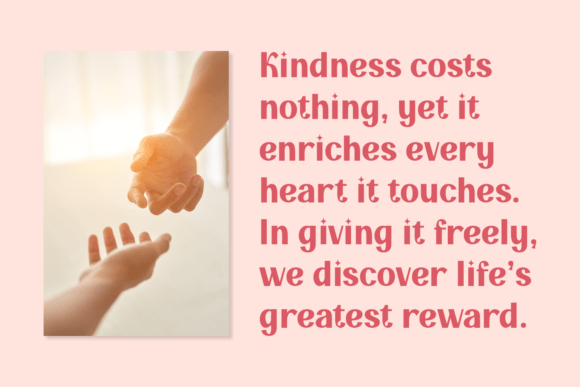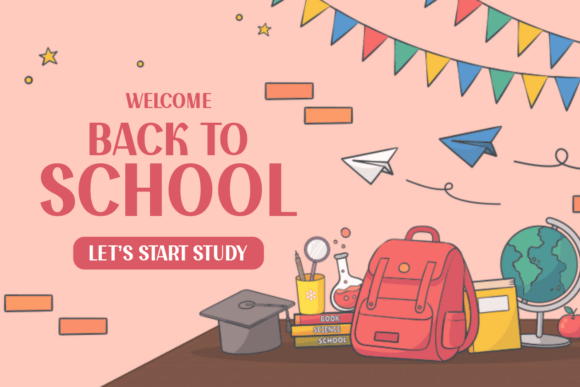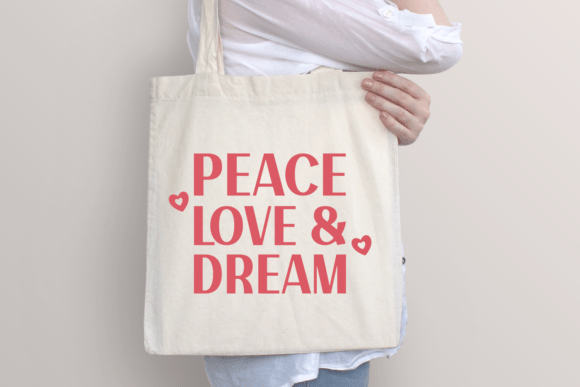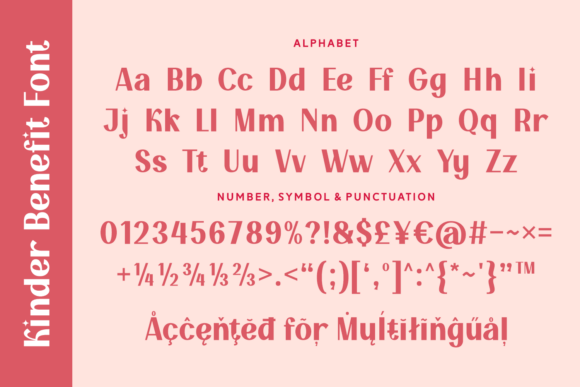
Introduction to Kinder Benefit Font
Kinder Benefit is a playful and modern sans serif font with a soft, friendly character.
Its rounded edges and whimsical design elements, like decorative stars, give it a warm and approachable personality Perfect for childrenโs projects, branding, packaging, posters, and social media, Kinder Benefit combines readability with charm, making it suitable for both fun and professional design needs.
Key Features of Kinder Benefit Font